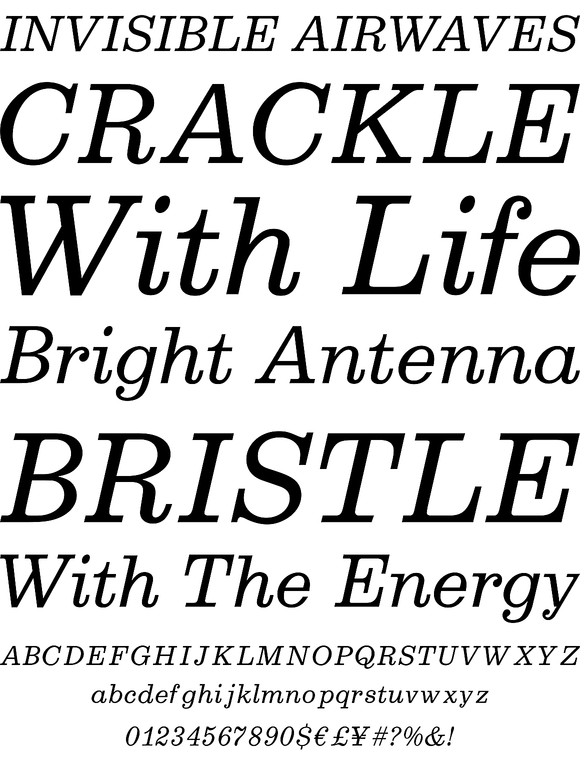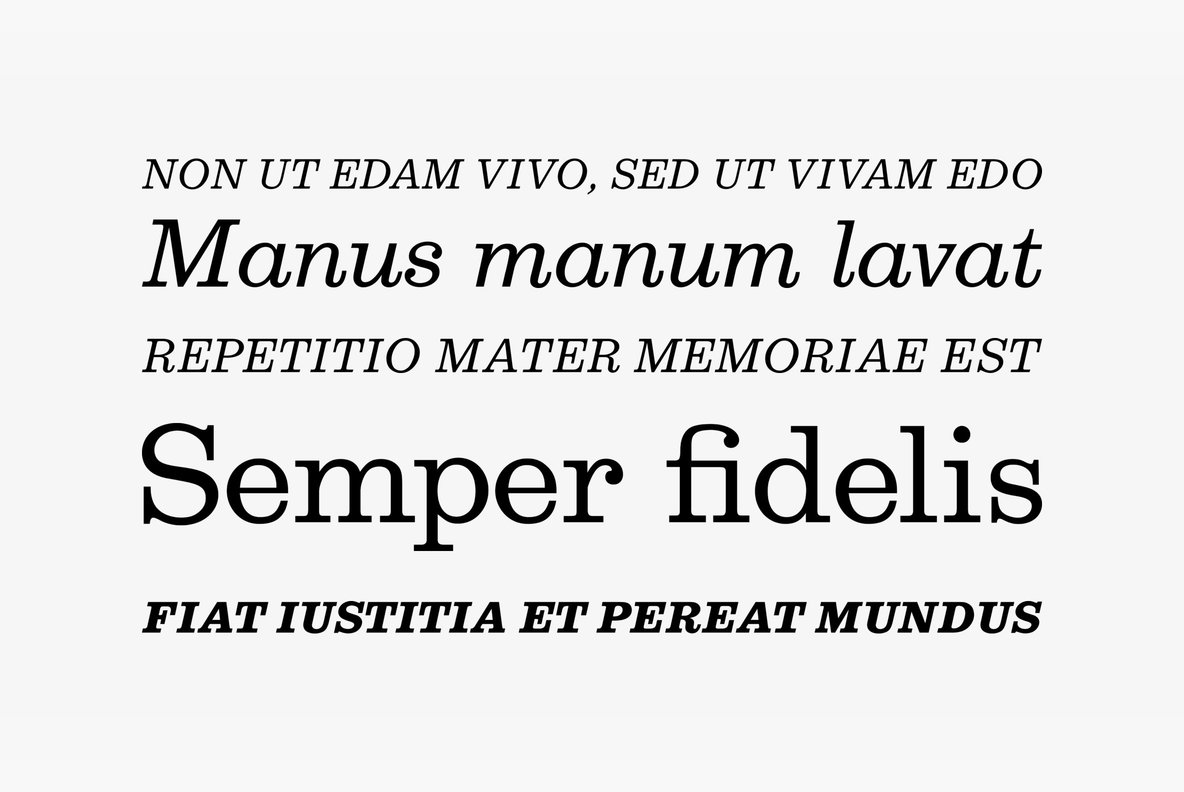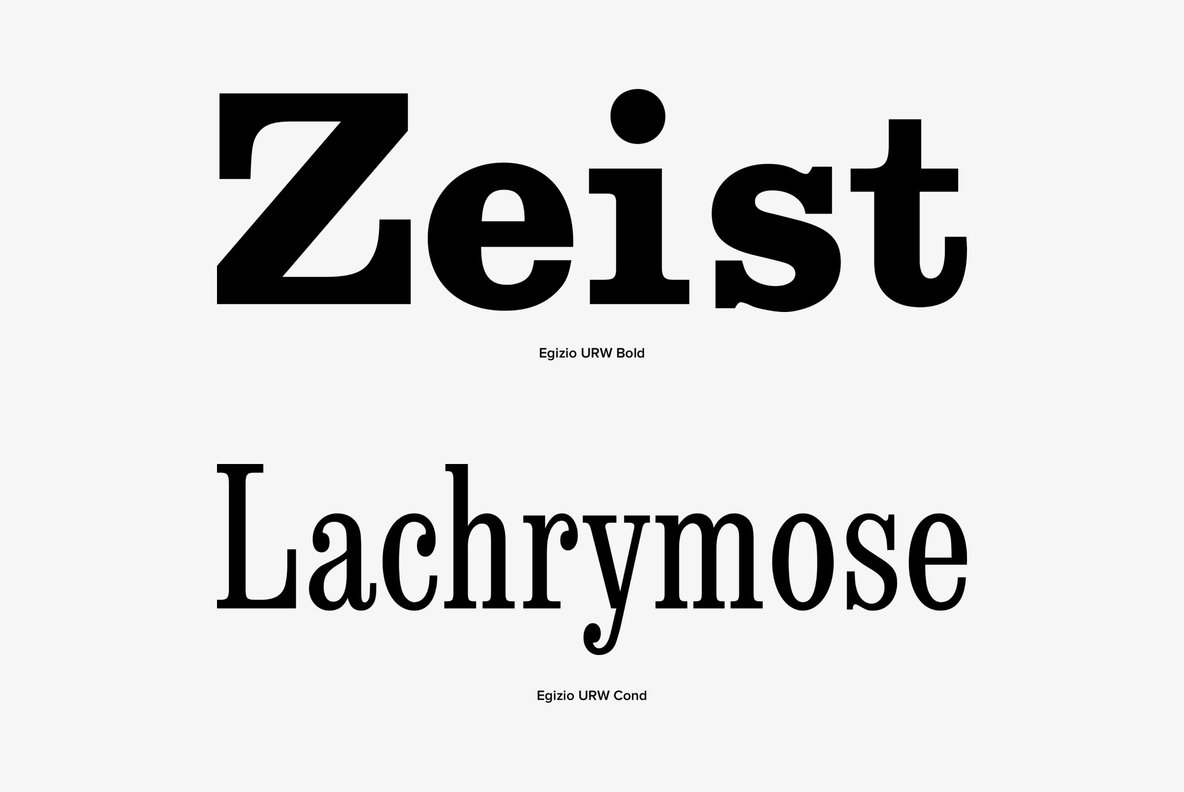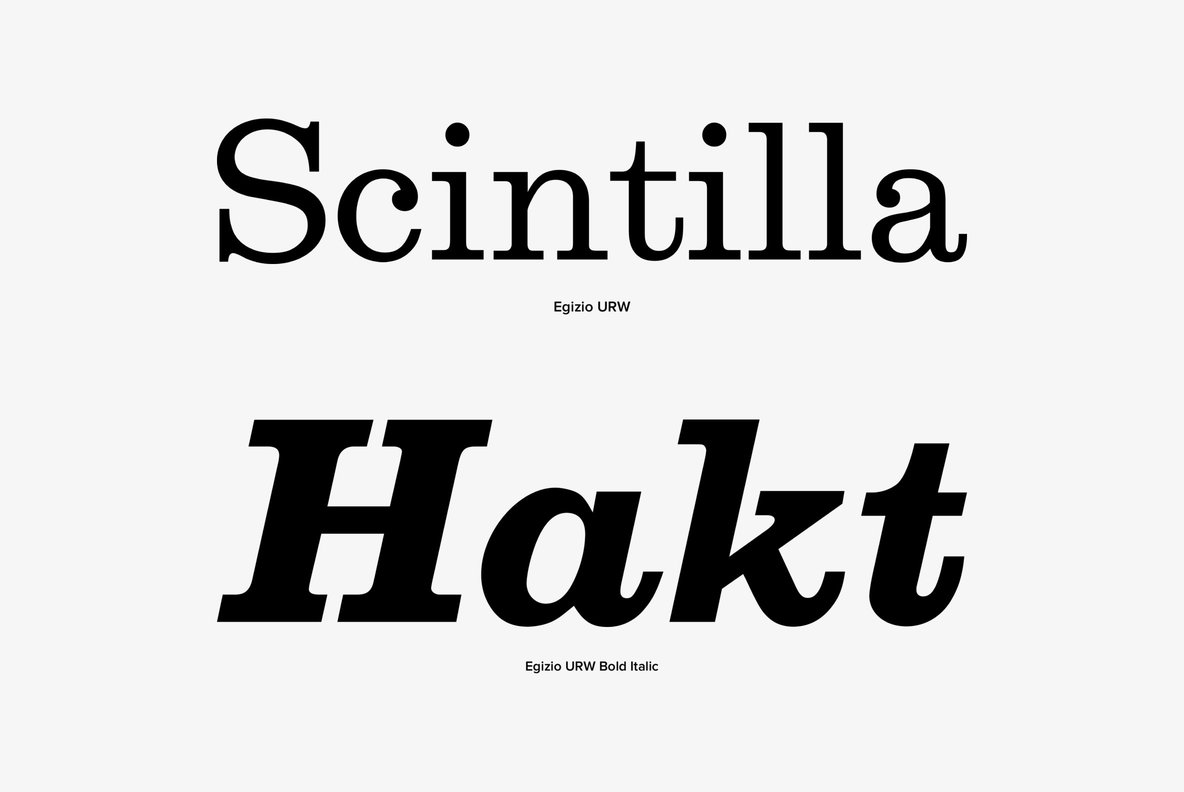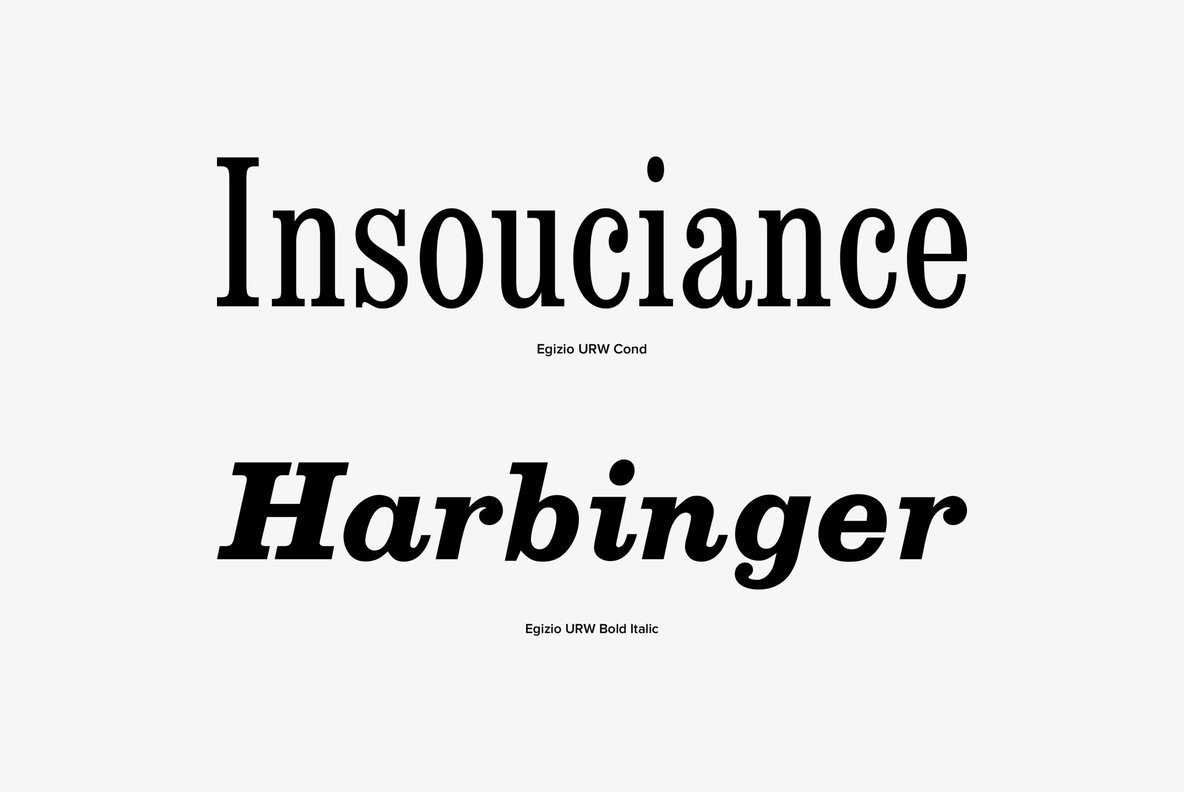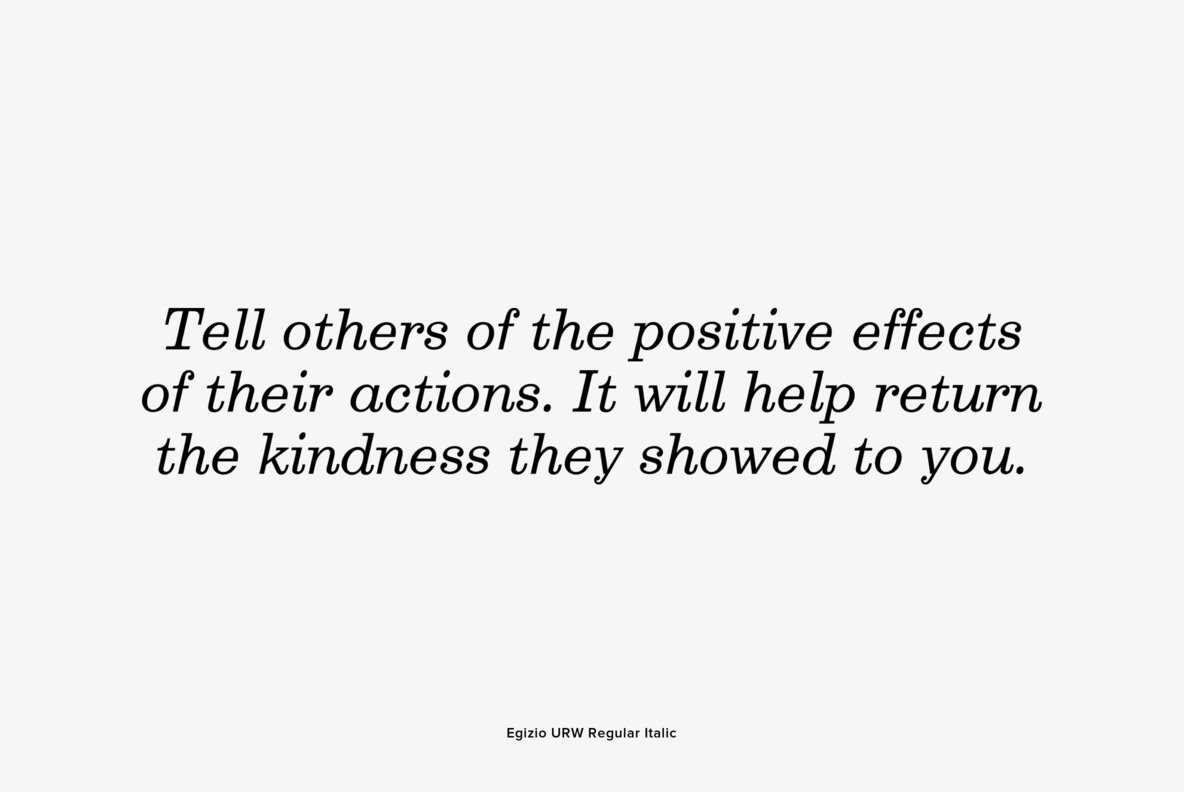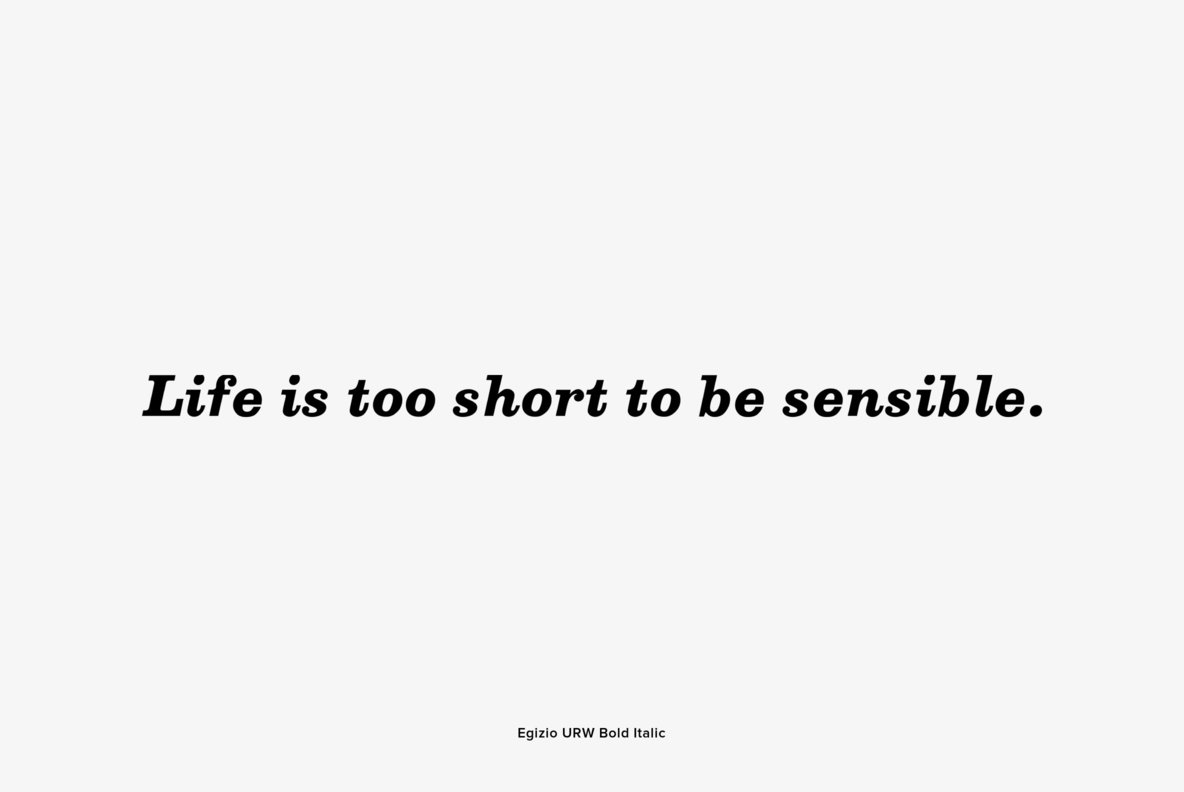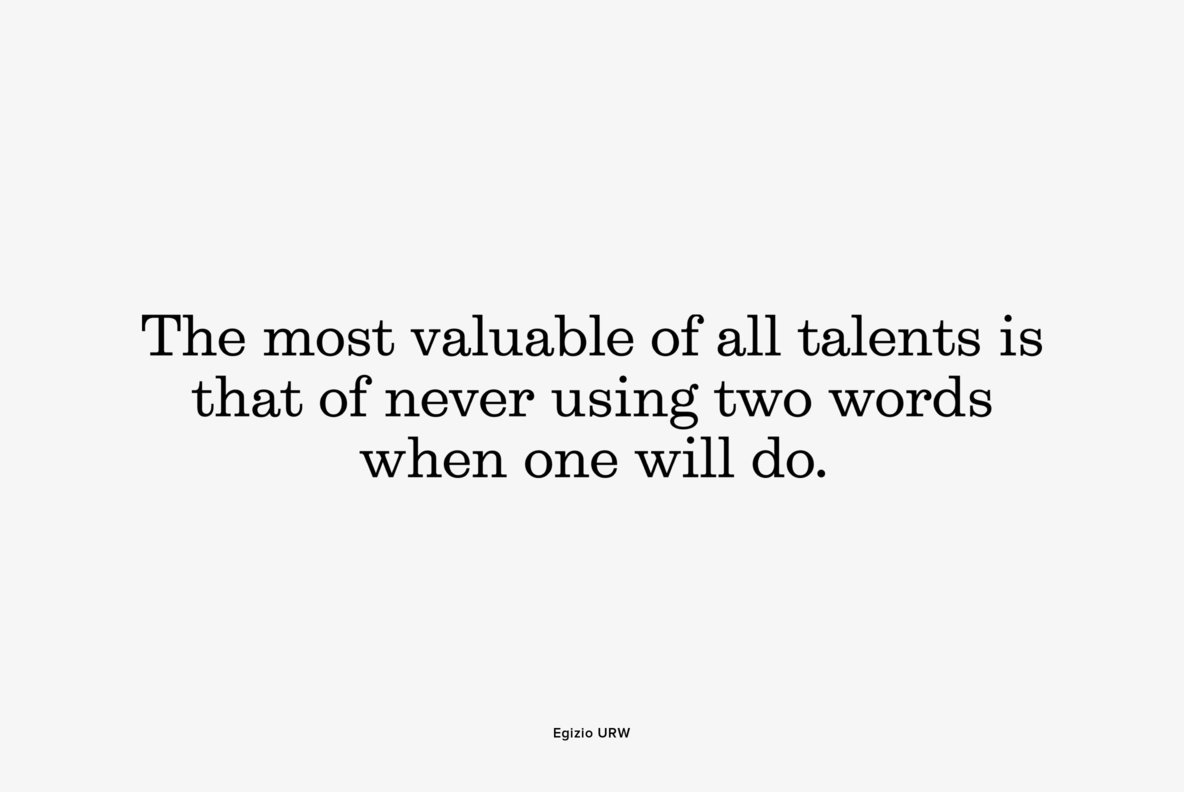
Originally designed by Aldo Novarese in 1955, Egizio is a slab-serif font release by URW. Contains language support for West, East, Turkish, Baltic, and Romanian.